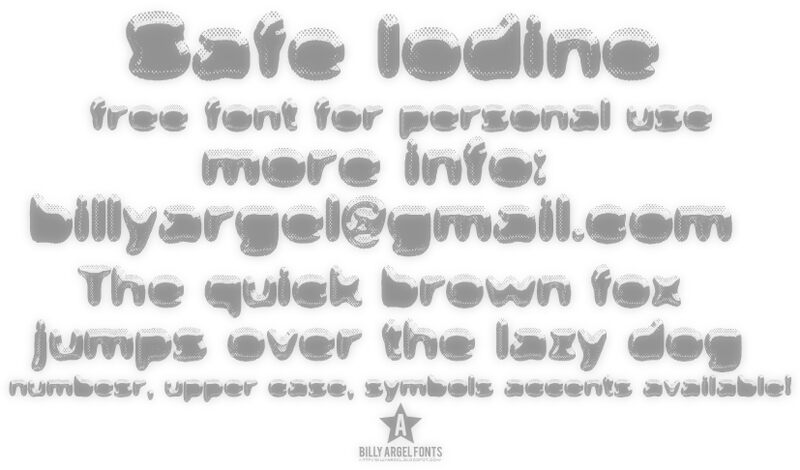
Safe Iodine by Billy Argel is a free graffiti script with swollen, rounded letters and a rough street-art finish. Its dense shapes sag and bulge as if painted too heavily. Speckled halftone patches break across the dark strokes.
A title becomes a piece of graffiti rather than neutral lettering. The exaggerated forms suit skate merchandise, underground music posters, and youth event graphics, where their uneven texture can echo spray-paint patterns. It is especially convincing for hip-hop and streetwear projects built around urban illustration and comic-book imagery.